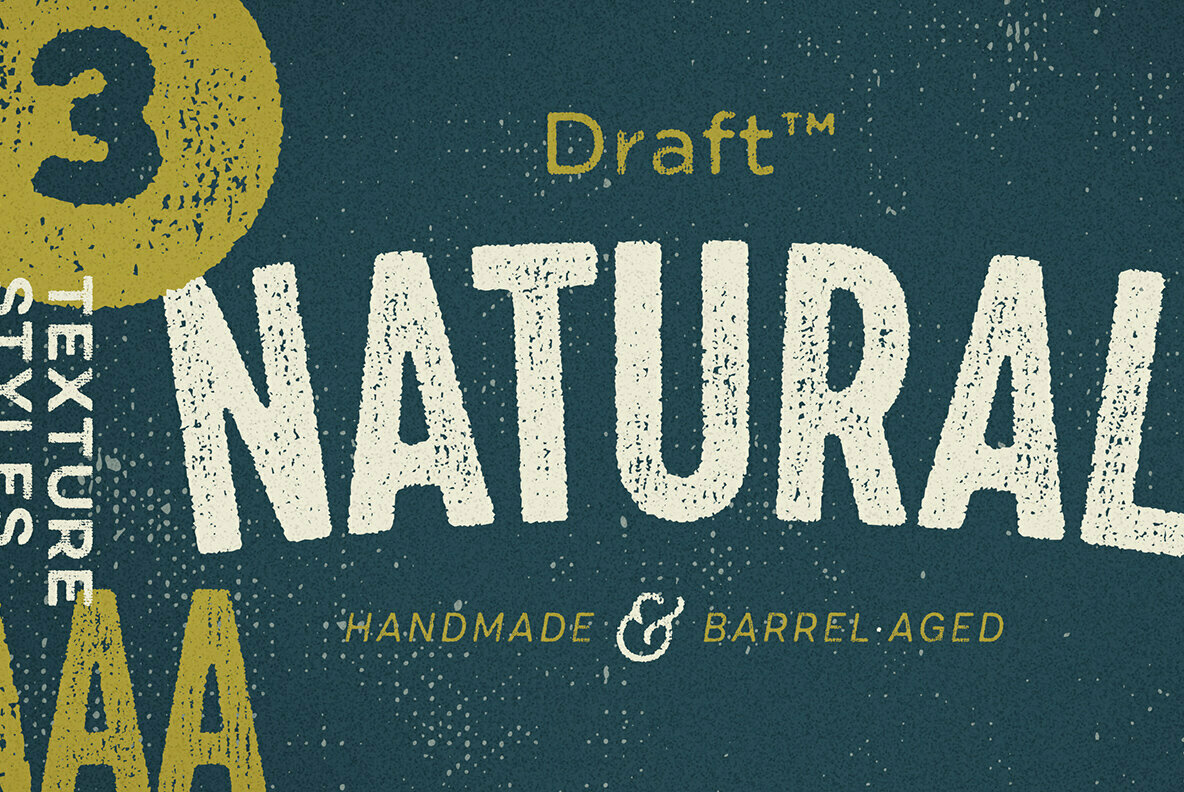
Draft Natural Font
Draft Natural Font is perfect for various design applications including organic product packaging, sustainable brand identities, eco-friendly company communications, natural health product labels, environmental organization materials, artisan craft workshop signage, farm-to-table restaurant menus, organic farming cooperative displays, natural beauty product branding, and authentic sustainability-focused communications. This earthy typeface excels in projects requiring organic authenticity and natural appeal that captures the honest simplicity and environmental consciousness of sustainable living and organic lifestyle choices.
What makes Draft Natural Font so exciting is its authentic embodiment of organic simplicity and natural authenticity through letterforms that suggest hand-sketched designs and the unpretentious honesty of sustainable craftsmanship. The font features organic construction that mirrors natural growth patterns, unrefined proportions that communicate environmental consciousness and authentic simplicity, and distinctive character details that evoke pencil sketches and the preliminary planning stages of thoughtful design. Its distinctive natural character and organic appeal make it perfect for sustainability-focused brands seeking to communicate authenticity, environmental responsibility, and the honest values that define conscious living and organic lifestyle choices.
Draft Natural Font family includes multiple organic weights and natural variations that enhance its versatility for different sustainability applications. Each style maintains the font's signature natural character while providing options for various eco-friendly design approaches. The family also features organic decorative elements, environmental symbols, and natural ornaments that can be combined with the letterforms to create cohesive sustainable living design systems.
Whether you're developing eco-friendly brands, organic product lines, or sustainability communications, Draft Natural Font Free Download provides authentic typography that grows naturally from environmental consciousness and celebrates the honest beauty of organic living and sustainable practices. This typeface transforms ordinary communications into organic statements that promise authentic environmental responsibility and natural quality. The font's natural appeal makes it particularly effective for organic food companies, sustainable brands, and environmental organizations targeting conscious consumers who value authenticity and environmental stewardship.
Draft Natural Font stands out by delivering genuine organic authenticity that feels naturally grown rather than artificially eco-styled or superficially green. Its carefully crafted natural proportions and organic details ensure that designs feel authentically connected to sustainable traditions and environmental consciousness. From organic product branding to sustainability communications, this font provides designers with tools to create communications that celebrate environmental responsibility and inspire appreciation for organic living through natural, earth-inspired typography that grows from genuine environmental commitment.